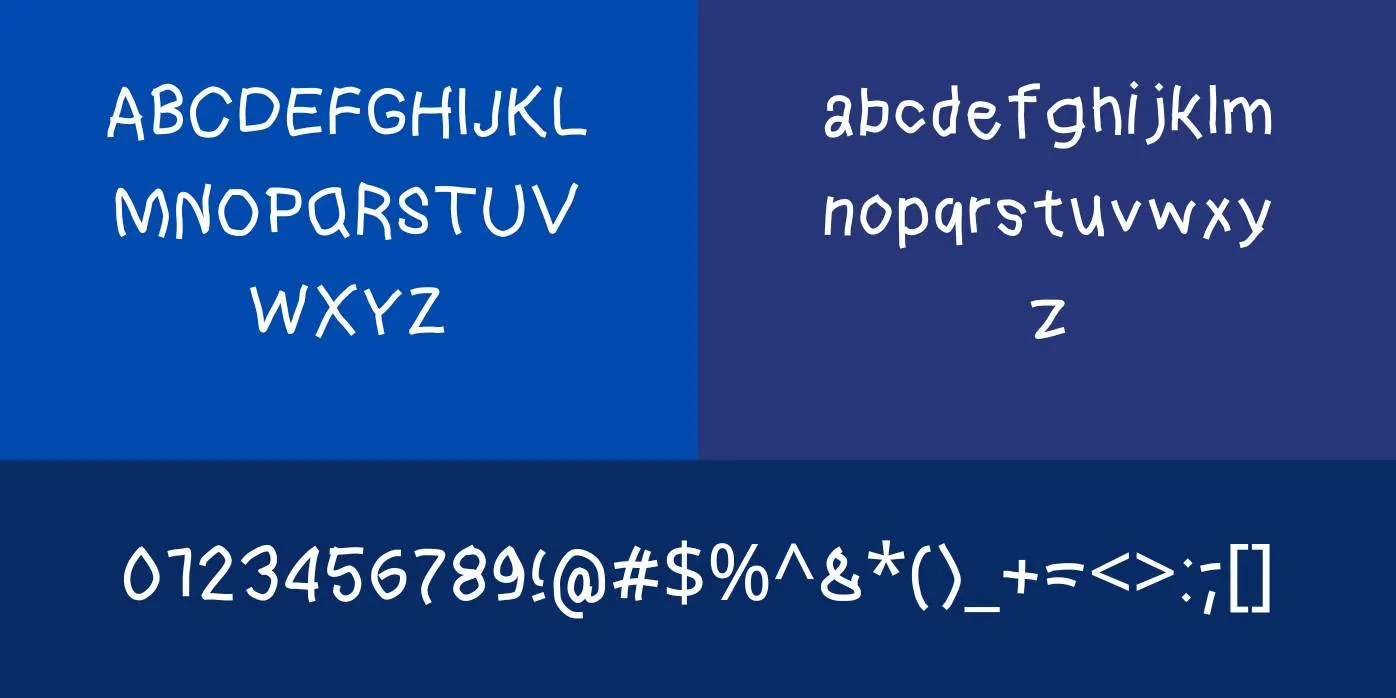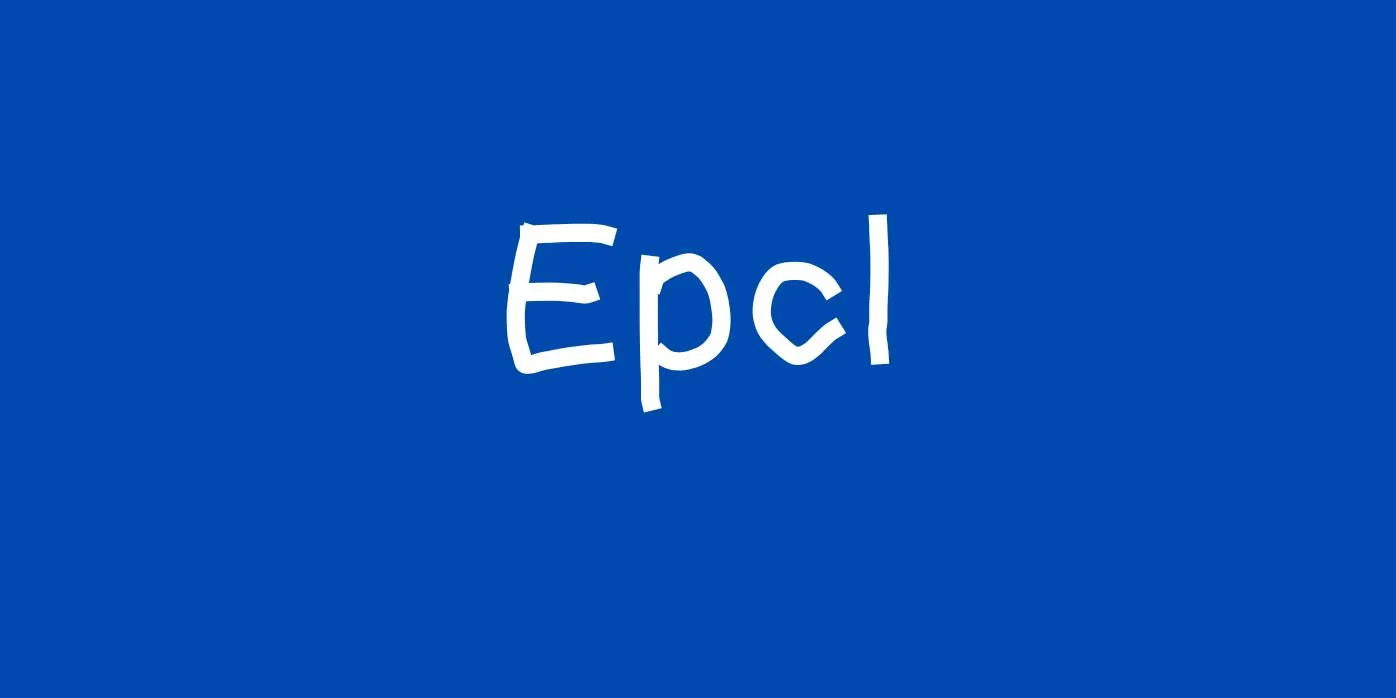
Epcl Font
You are going to get a fantastic handwritten type of font. Epcl Font is a handwritten type of font. The Epcl Font is the designer of this typeface. There are 87 amazing glyphs for this font.